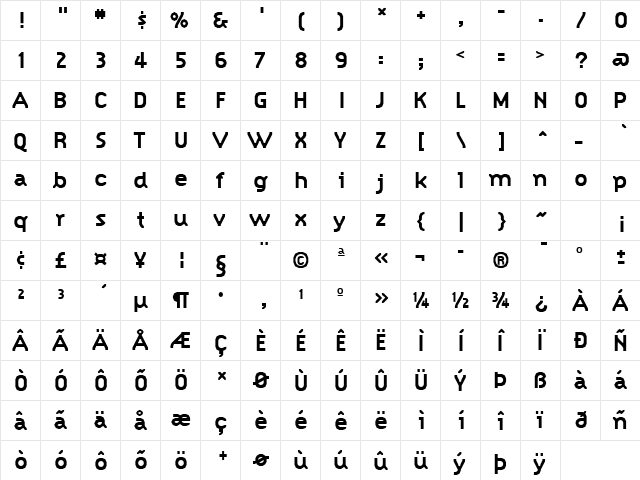
Hype Style Black Regular
Design Context for Hype Style Black Typeface
Hype Style Black is a composed and adaptable typeface that performs quietly and consistently across a wide range of design contexts.
Pro Tip: Pair Hype Style Black with a font of contrasting weight or personality to build a more expressive typographic hierarchy.